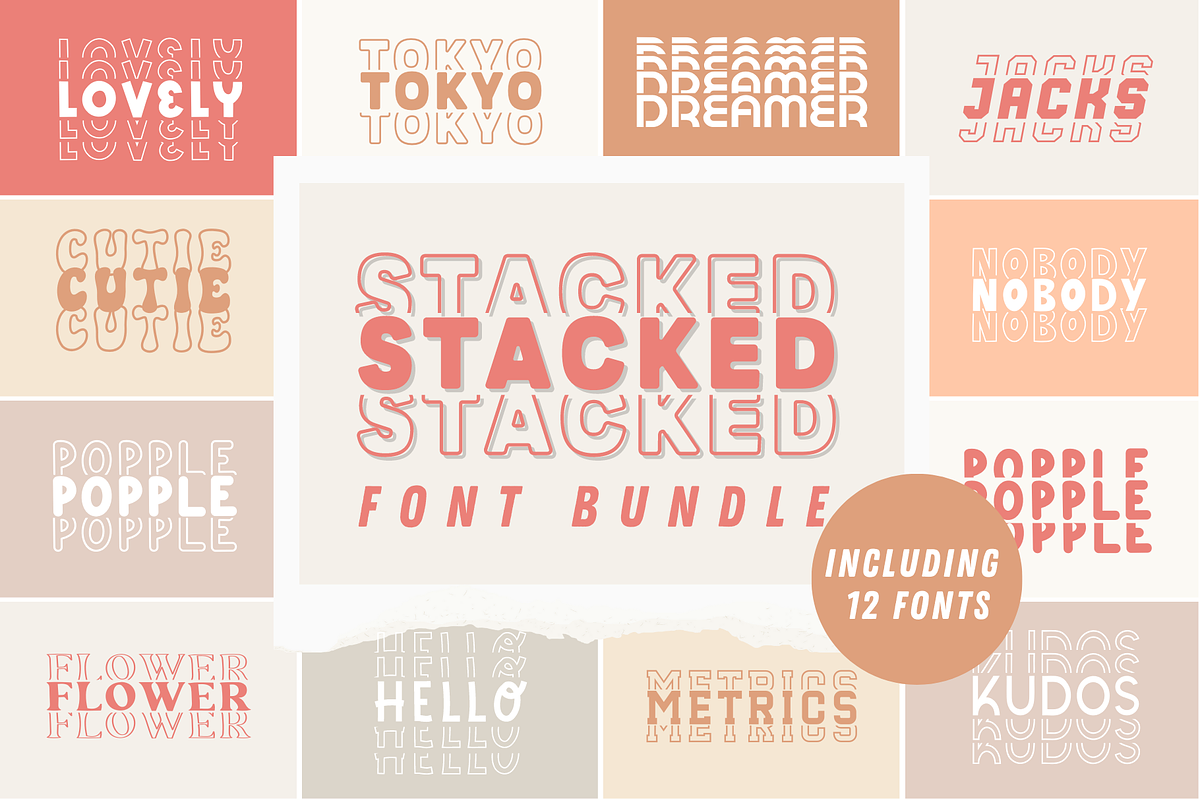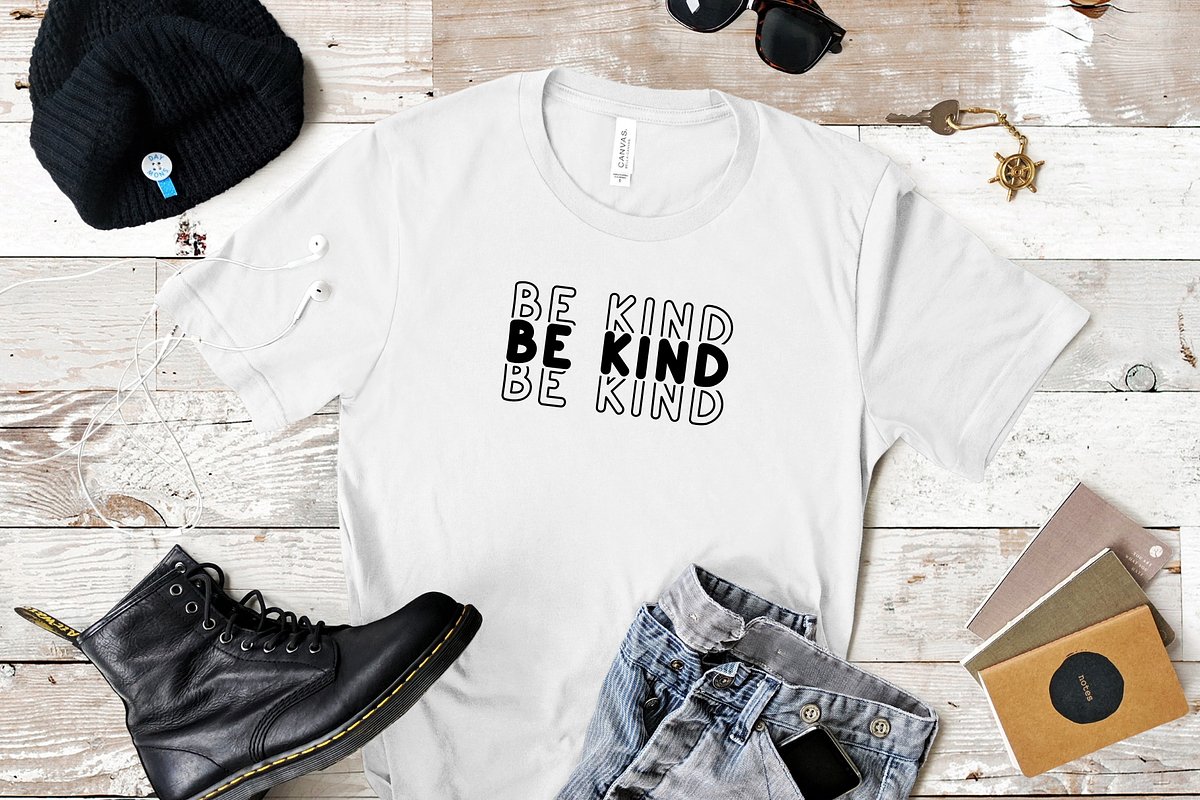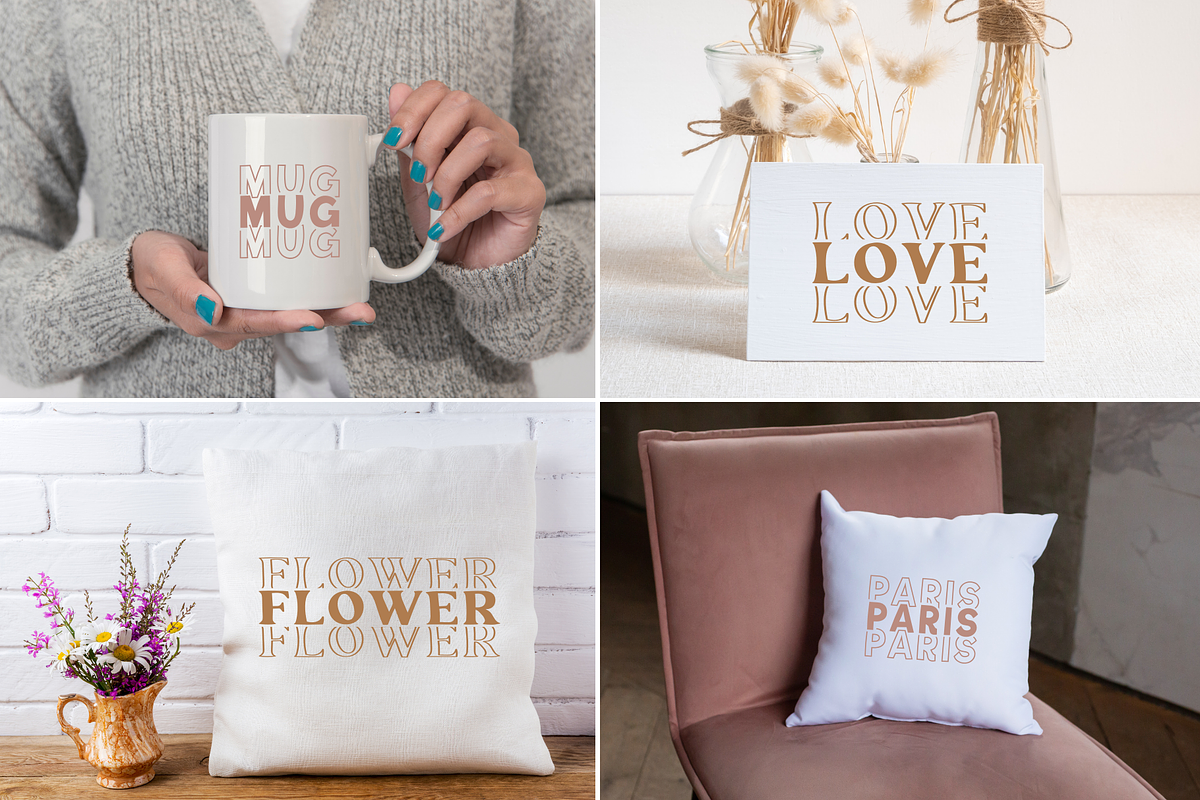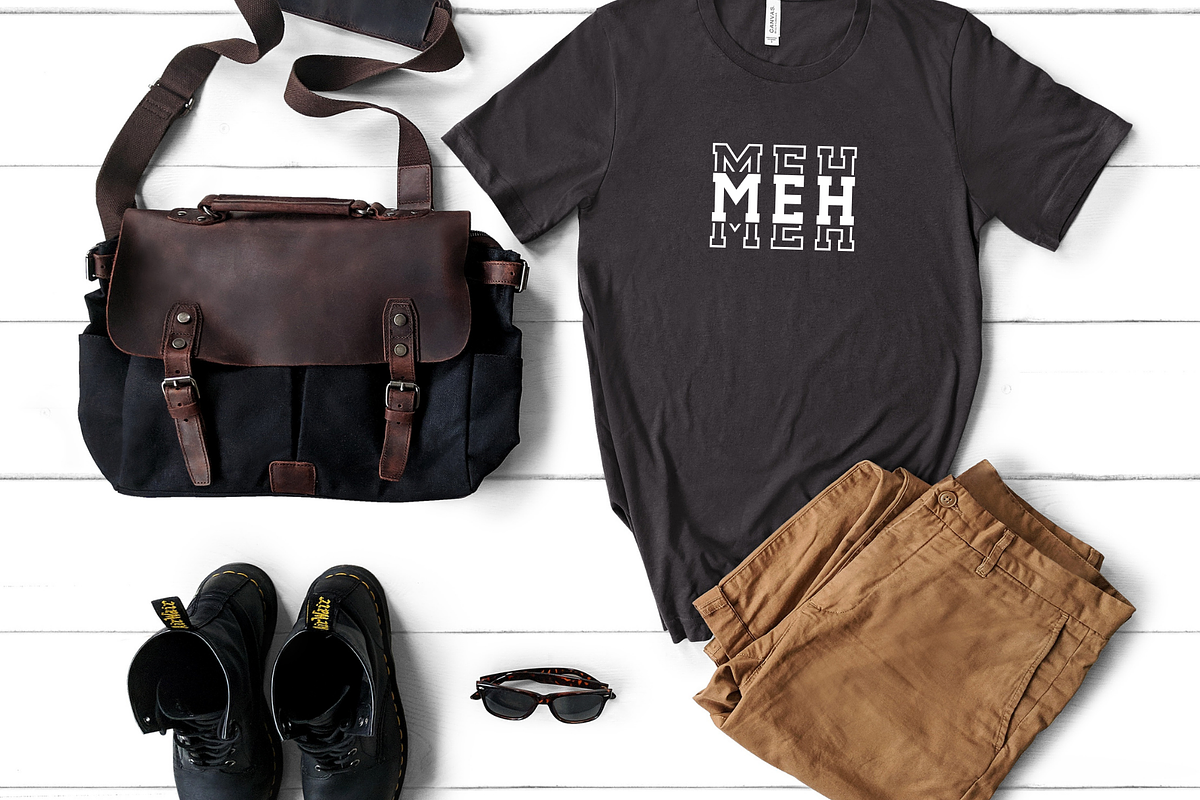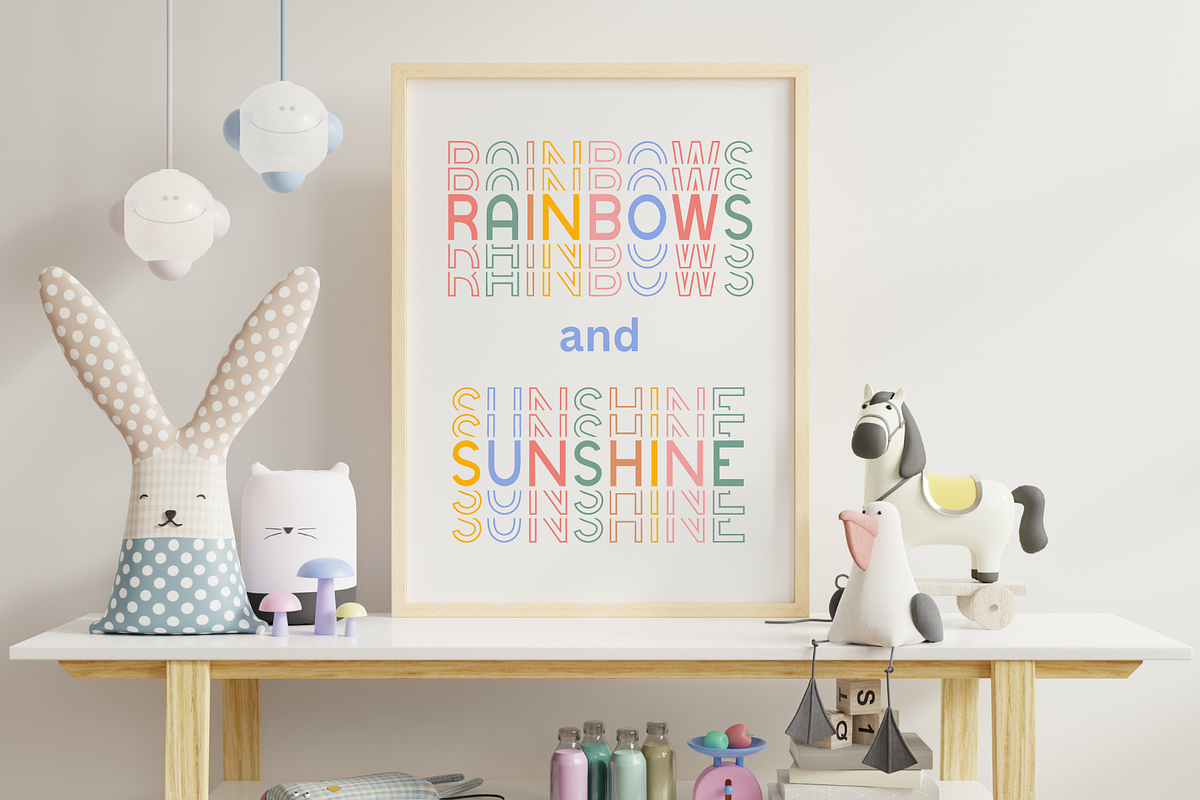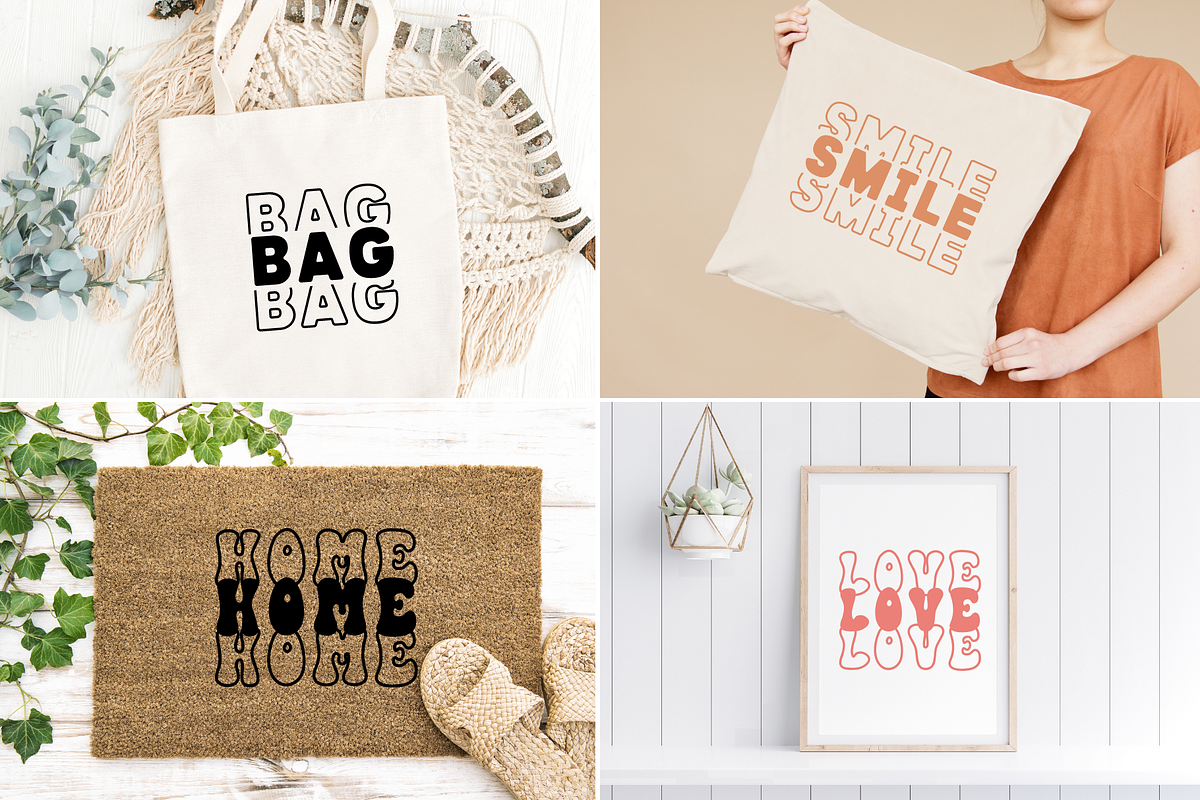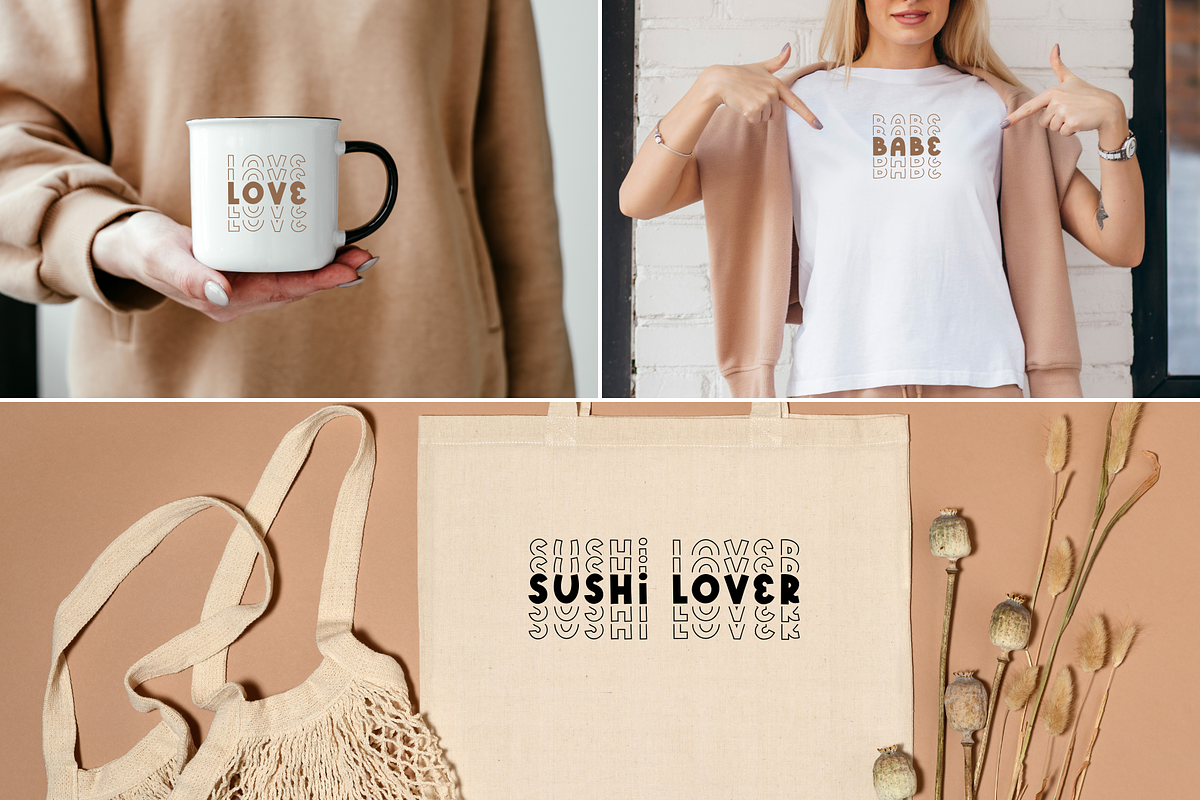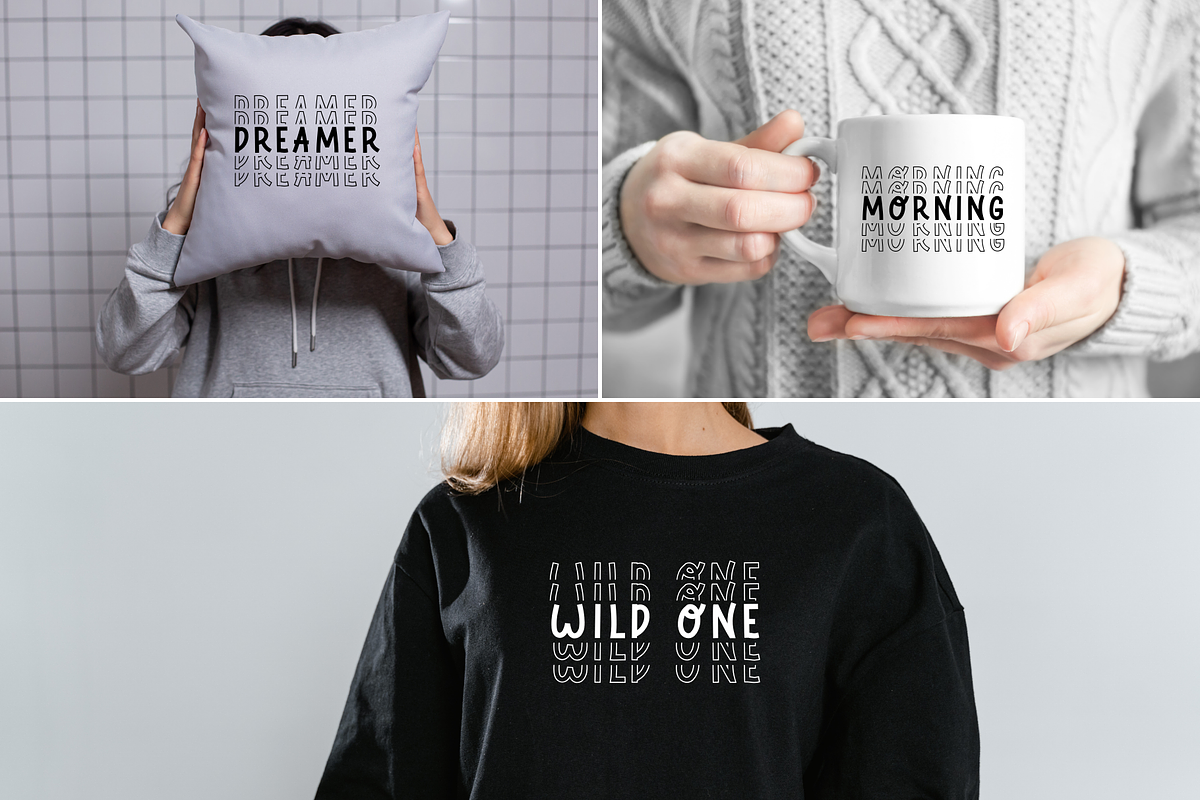
Stacked Fonts Bundle 12 Fonts
Introducing a font bundle for your design projects, including 12 stacked fonts perfect for creating t-shirts, mugs, marketing materials, home decoration, and so much more. These fonts are versatile and easy to use, making them perfect for both professional and personal projects. With a variety of styles and designs to choose from, you'll be able to create unique and eye-catching designs every time. Don't miss out on this opportunity to elevate your design game and stand out from the crowd. Purchase our font bundle today!😍
Characters: A B C D E F G H I J K L M N O P Q R S T U V W X Y Z 0 1 2 3 4 5 6 7 8 9 . , : ; ! ? @ _ & # % + - × ÷ = / $ ¢ € £ ¥